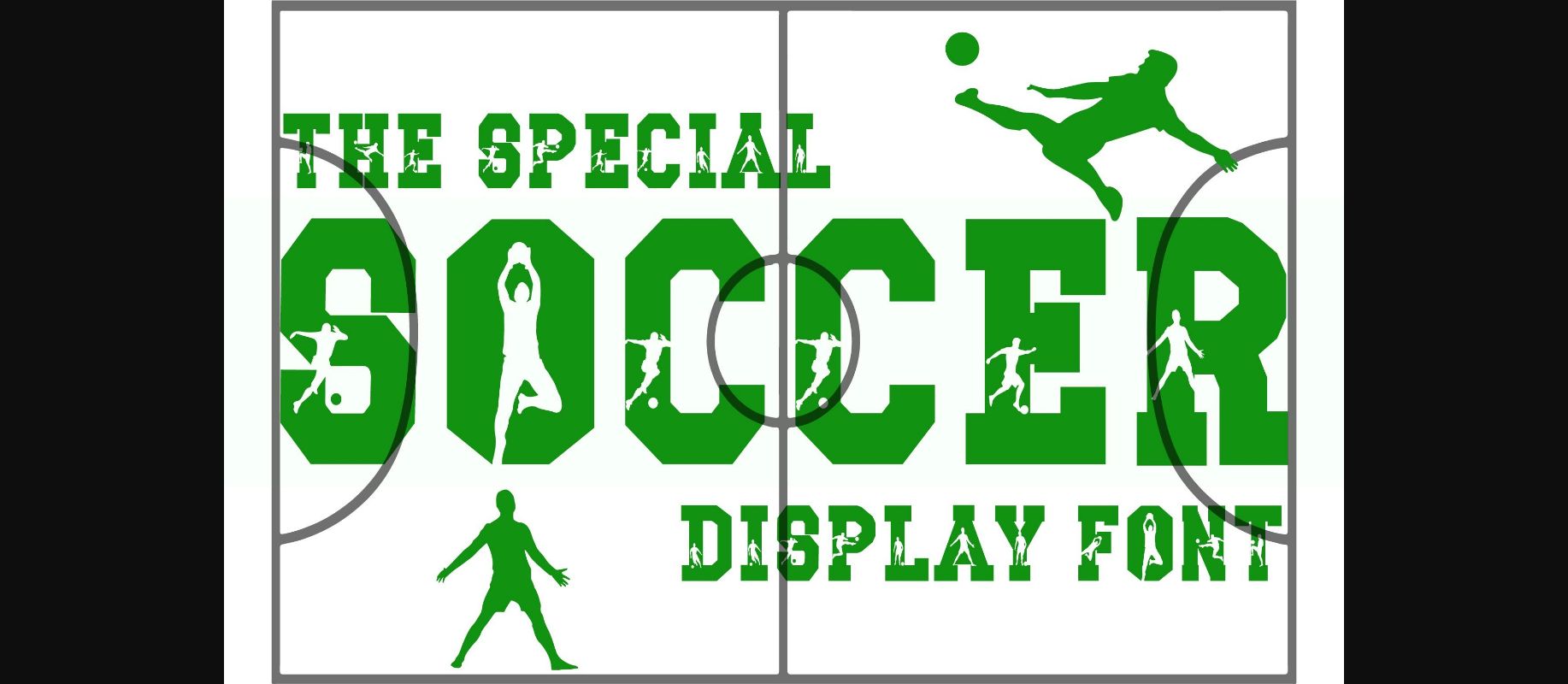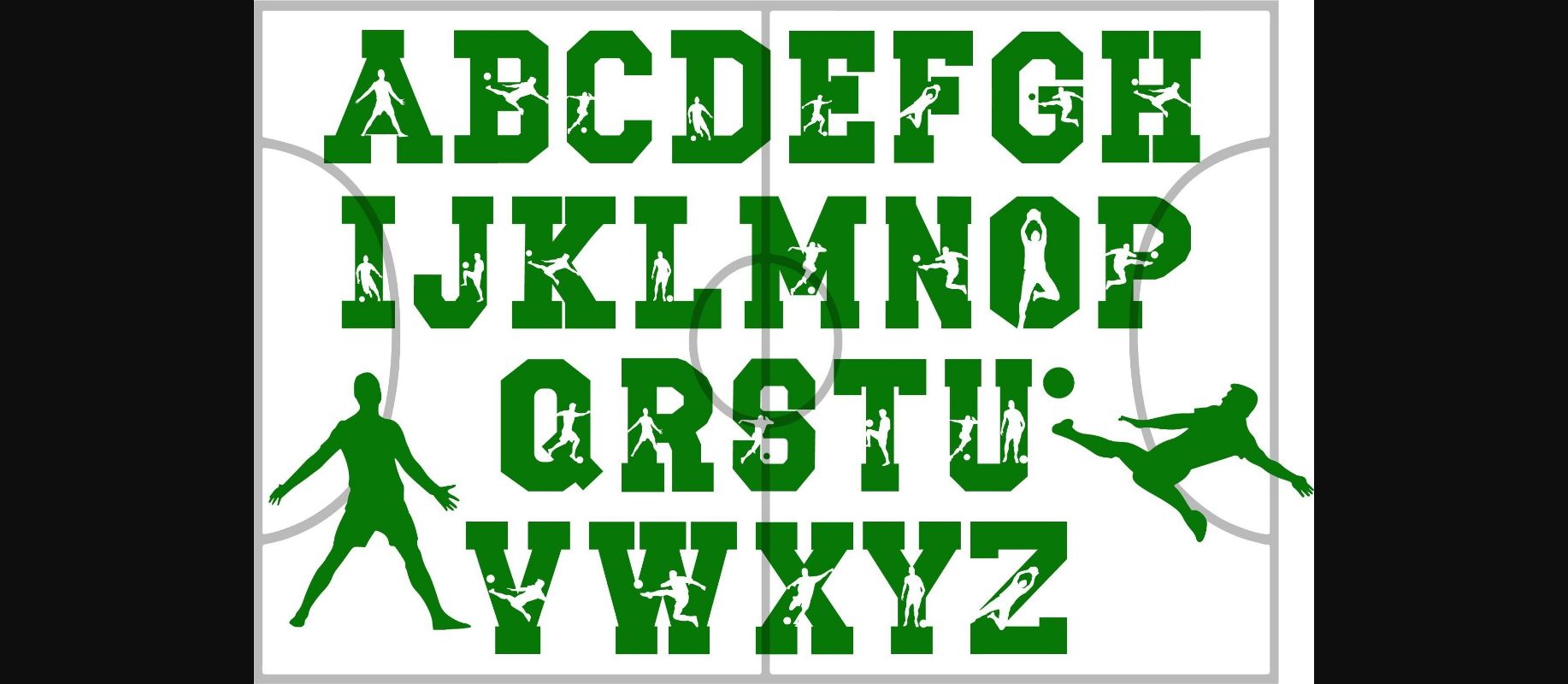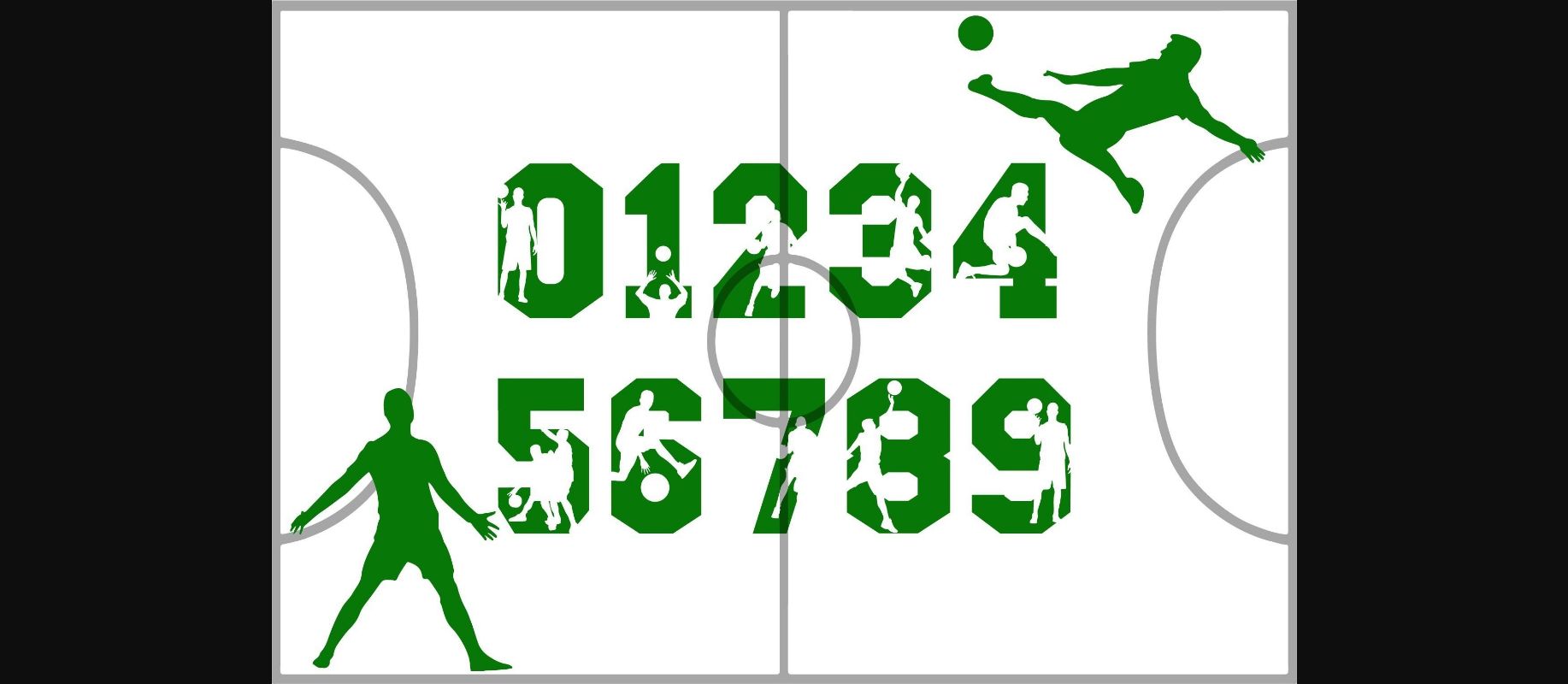
Soccer Font
About Soccer Font
Soccer is a cool and original-looking decorative font suitable for logotypes, headlines, corporate identity, brand identity, apparel industry, posters, music, movies, games, magazines, books, comics, cartoons, YouTube, Instagram, websites, and many more!